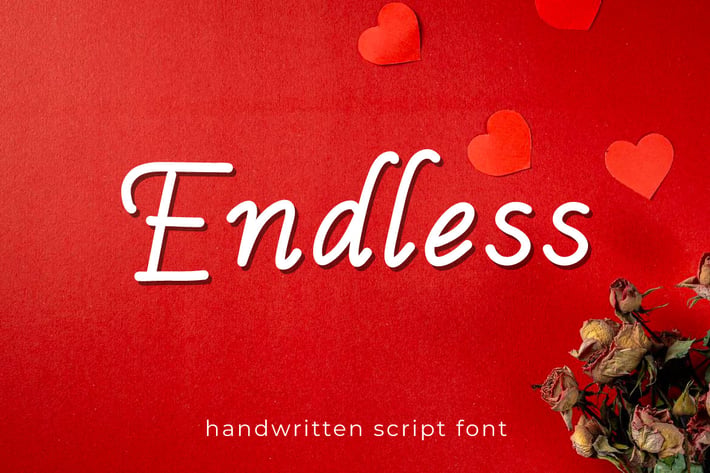
Endless - Handwritten Script Font
Hello! Endless is a minimalist handwritten font.
Endless can be used in any works such as flyer, book title, advertisement, social media content, logo and many more.